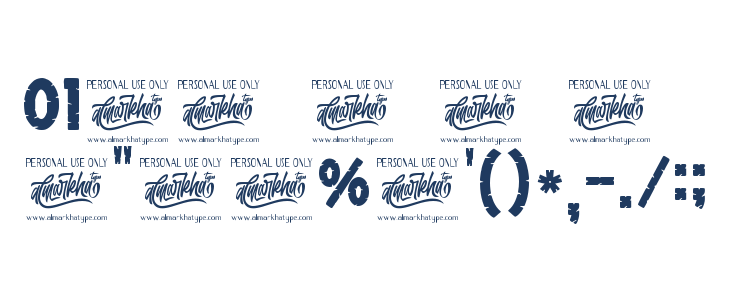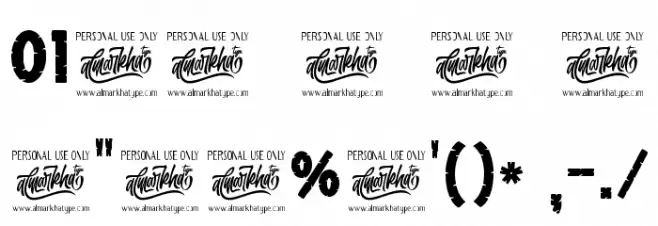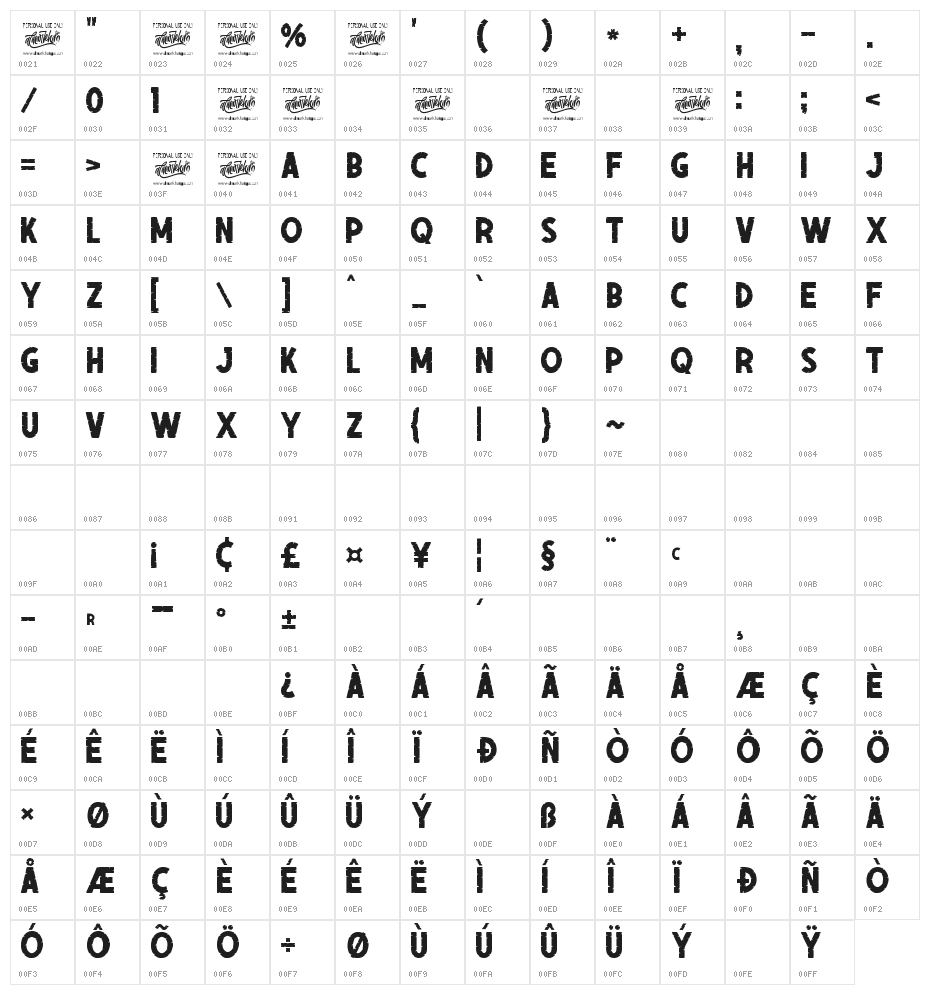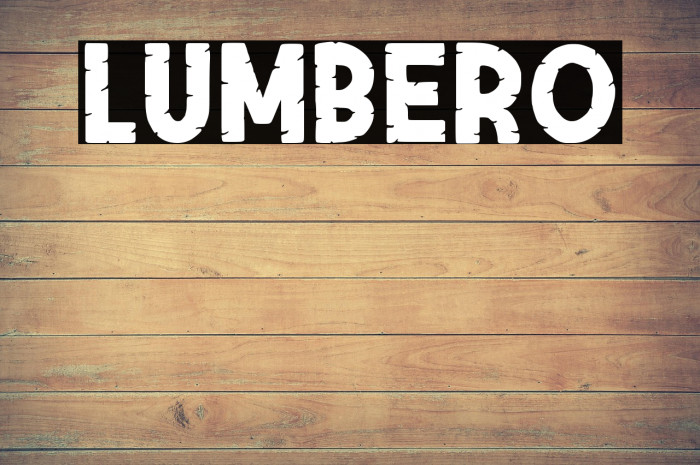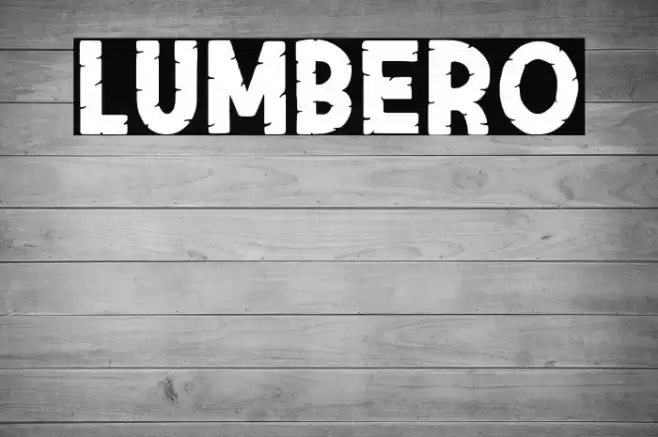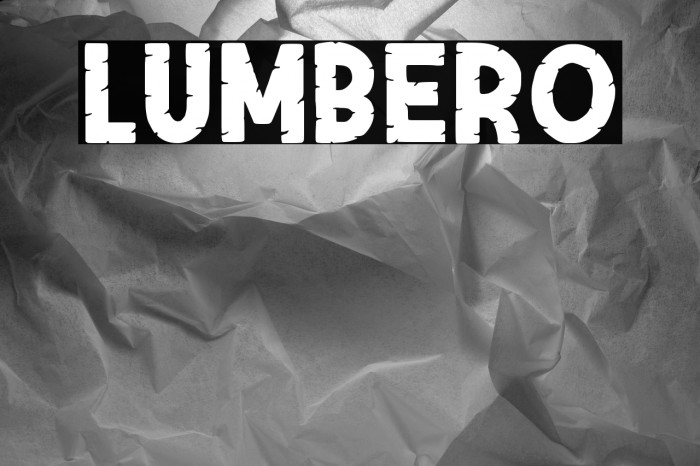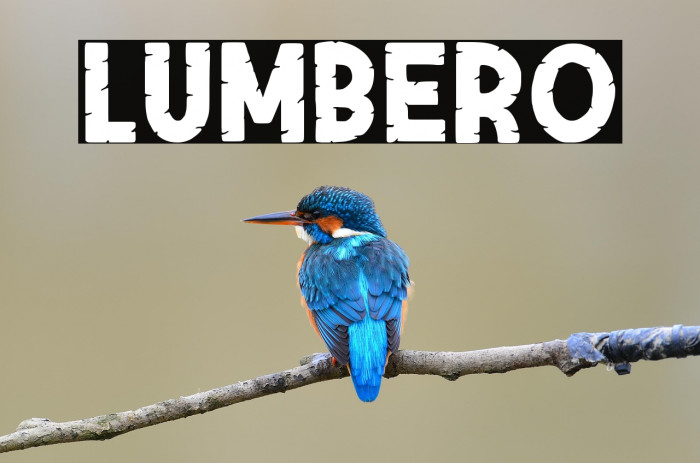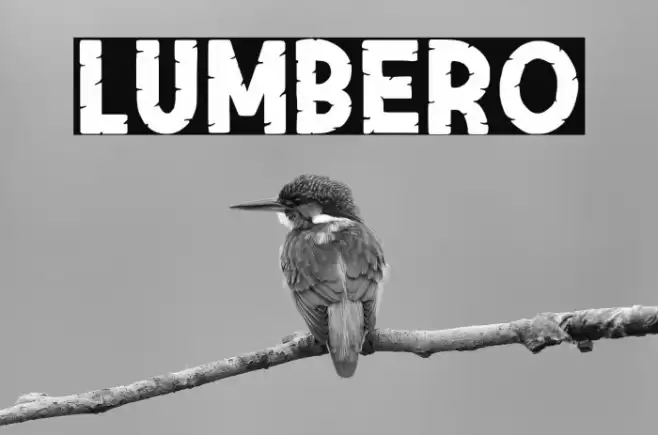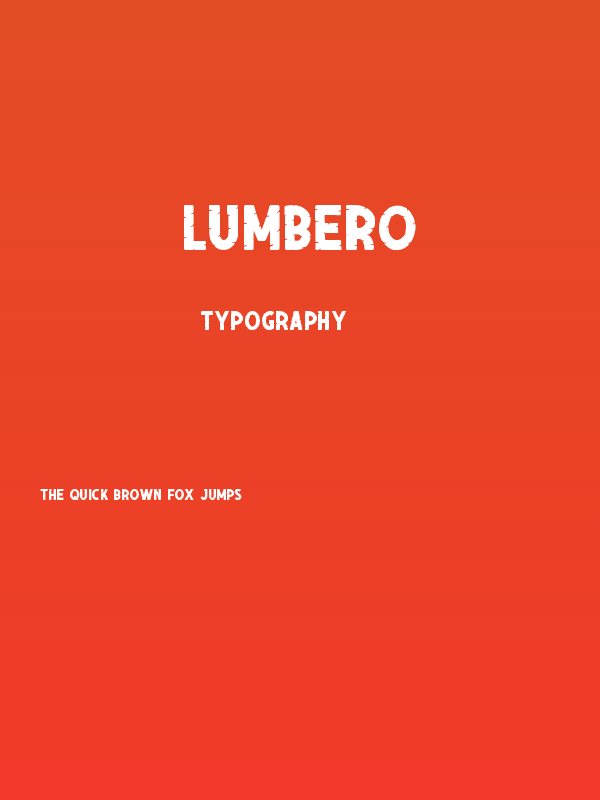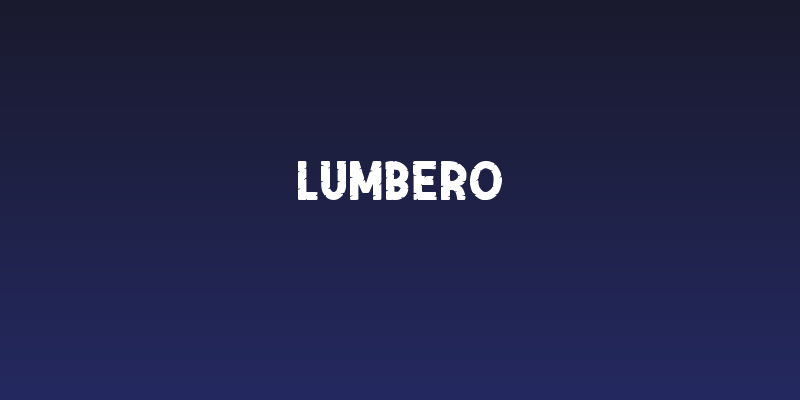
Lumbero Font
Lumbero Description
This font features a bold, distressed style with a rugged, textured appearance. The characters are uppercase and have a strong, impactful presence, making them ideal for attention-grabbing designs. The uneven edges and worn look give it a vintage, handcrafted feel, reminiscent of woodcut or stencil art. The numerals and special characters maintain the same distressed aesthetic, ensuring consistency across all text elements. This font is perfect for projects that require a rustic or industrial vibe, adding character and depth to any design.
| Proposed Projects | Ideal for posters, logos, branding, and packaging that require a rustic or industrial touch. |